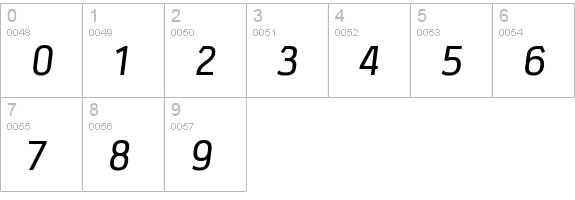
Xenu Italic is a distinctive, italic variant in the Xenu typeface family \xE2\x80\x94 well suited to design and typography projects.
Xenu Italic font is a modern and stylish typeface that exudes elegance and sophistication. With its sleek and slanted design, this font is perfect for adding a touch of flair to any project. The italicized characters flow gracefully, making Xenu Italic ideal for conveying a sense of creativity and uniqueness. The best part about Xenu Italic font is that it is completely free to download at FontsMarket.com. Whether you're working on a personal project or a professional design, this font is a versatile choice that will elevate your work to the next level. Don't miss out on the opportunity to enhance your designs with the beauty and charm of Xenu Italic font – download it now and let your creativity shine!